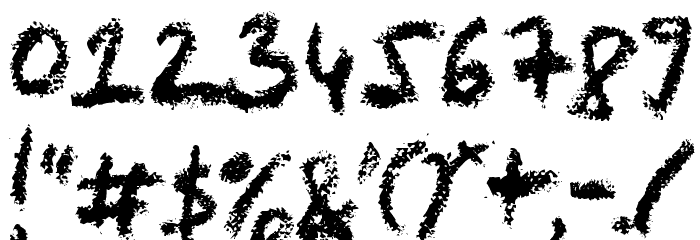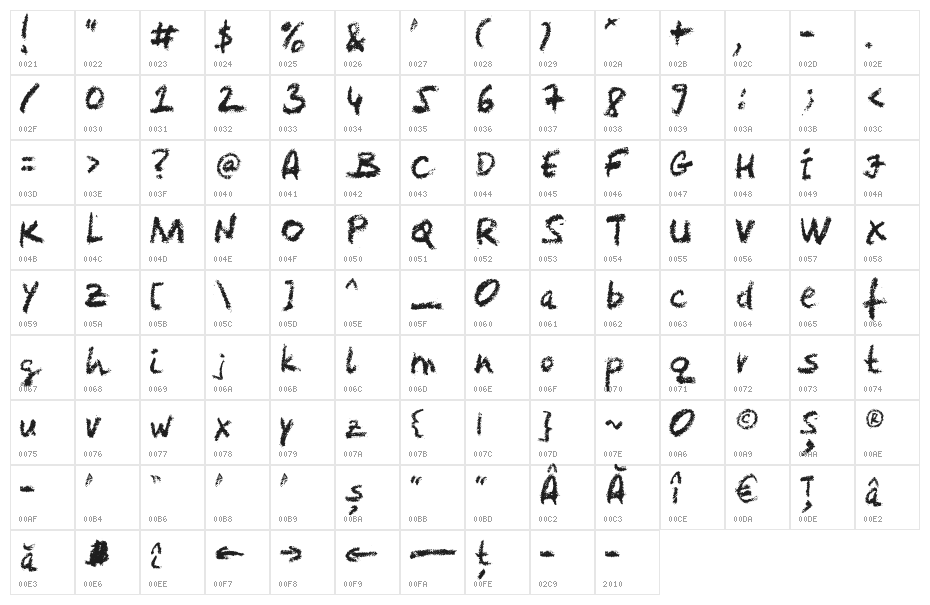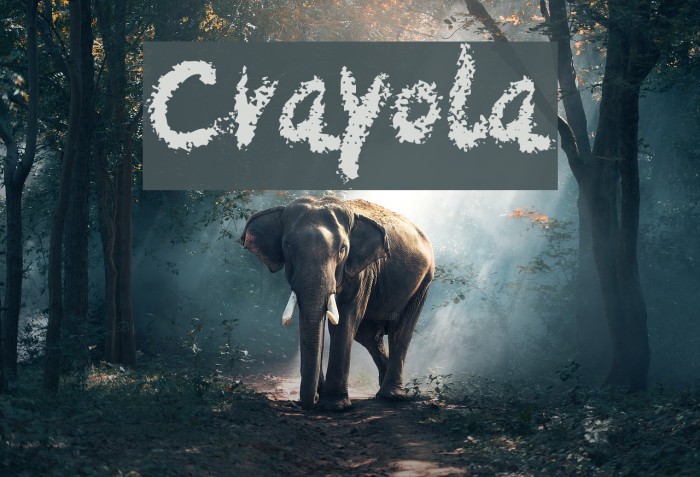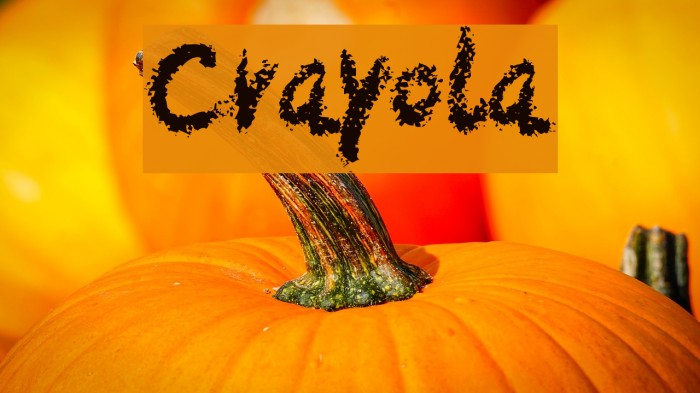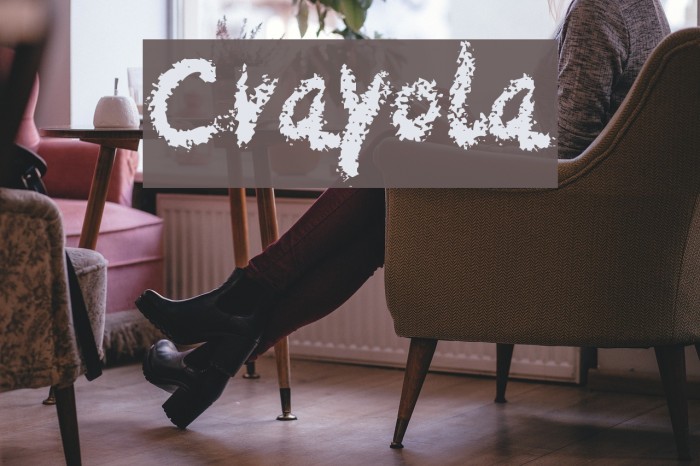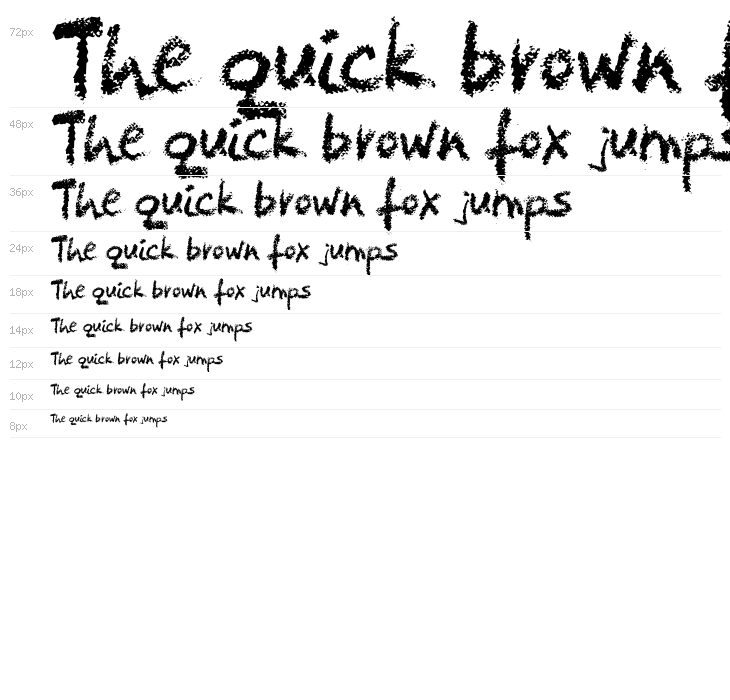
Crayola Font
Crayola Description
This font exudes a playful and artistic vibe, reminiscent of crayon or chalk drawings. The letters have a rough, textured appearance, giving them a handcrafted feel. The strokes are uneven and varied, adding to the casual and informal style. The uppercase and lowercase letters maintain a consistent style, with a slightly slanted orientation that suggests movement and energy. Numbers and special characters follow the same textured and dynamic design, making the font suitable for creative and informal projects.
| Overall Style | Playful, Artistic |
| Proposed Projects | Ideal for children's book covers, playful posters, educational materials, and creative branding projects. |